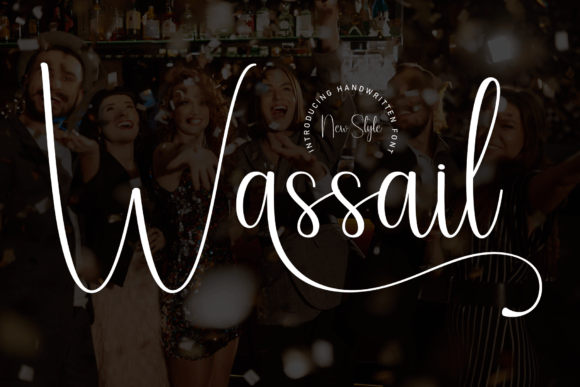
Feast your eyes on Wassail Font, a charming hand-lettered font brimming with sweetness and friendliness. Its delightful handwritten style exudes a casual sophistication that effortlessly elevates any design. Whether you're crafting wedding invitations, menu designs, or quirky marketing materials, Wassail Font adds a touch of whimsical charm that's sure to leave a lasting impression.
Immerse yourself in the warmth and joy that Wassail Font evokes. This beautiful script font flows effortlessly, with its rounded curves and playful flourishes adding a touch of whimsy and elegance to your designs. Its versatile nature makes it a perfect choice for a wide range of projects, from personal stationery and invitations to eye-catching marketing materials and social media posts.
Step into a world of creative possibilities with Wassail Font. Its charming personality shines through in every character, bringing a sense of playfulness and warmth to your designs. Whether you're creating branding materials, product packaging, or simply adding a personal touch to your projects, Wassail Font is the perfect choice for adding a touch of handwritten charm.
Don't settle for ordinary fonts that fail to capture the essence of your brand or vision. Embrace the uniqueness and beauty of Wassail Font, a font that speaks to the heart and leaves a lasting impression. Its sweet and friendly demeanor is sure to resonate with your audience, creating a connection that goes beyond words.
So, embark on a creative journey with Wassail Font, and let your designs bloom with charm and personality. Its versatility and timeless appeal make it a font that you'll reach for again and again, adding a touch of magic to every project you create.